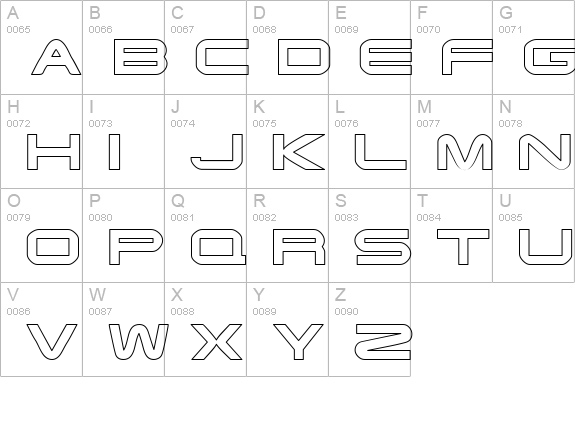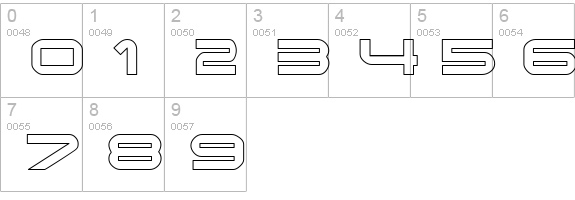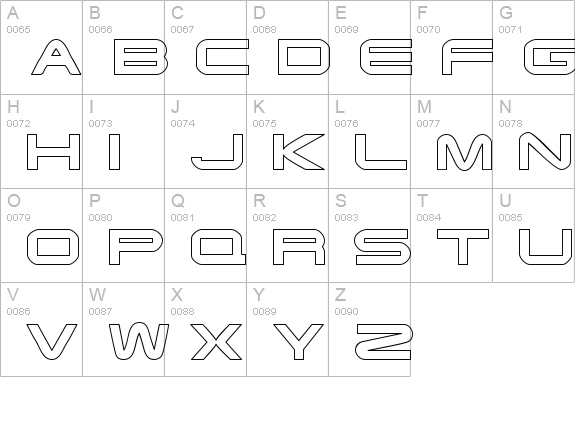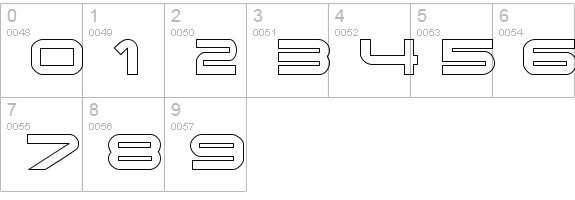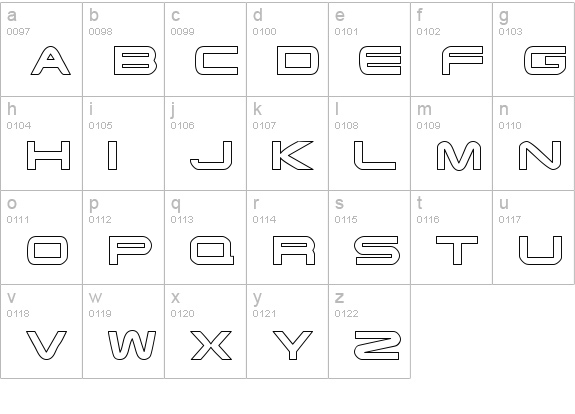
EndzoneOutline Black is a maximum-weight, dramatic variant in the EndzoneOutline typeface family \xE2\x80\x94 well suited to maximum-impact headlines, posters, and packaging.
EndzoneOutline Black font is a bold and attention-grabbing typeface that exudes strength and modernity. Its sleek outlines and sharp edges make it perfect for creating impactful headlines, logos, and posters. The font's distinctive style sets it apart from the crowd and gives your designs a contemporary edge. The best part about EndzoneOutline Black font is that it is available for free download at FontsMarket.com. This means you can easily access this high-quality font without any cost, making it a valuable addition to your font collection. Whether you're working on personal projects or professional designs, EndzoneOutline Black font is a versatile option that will elevate your creations to the next level.